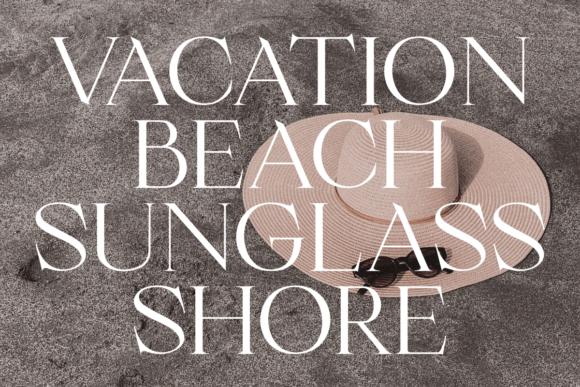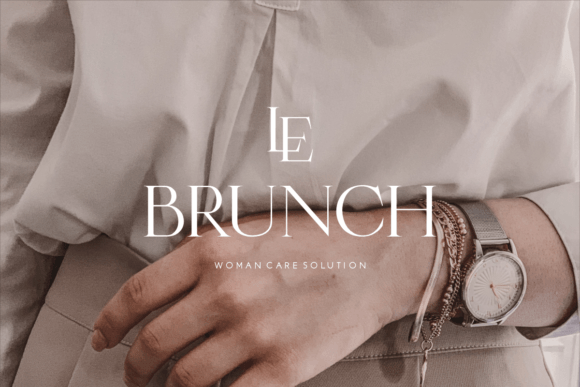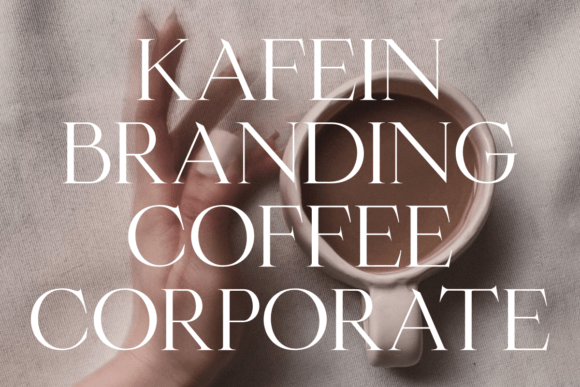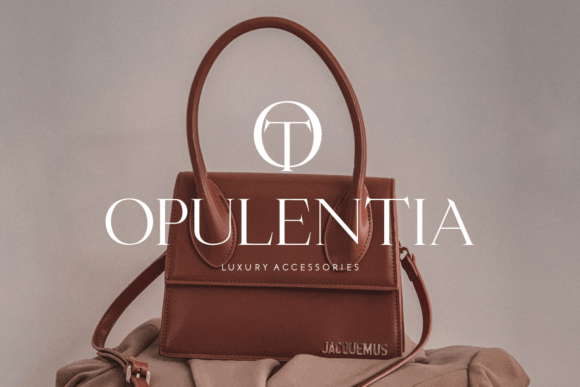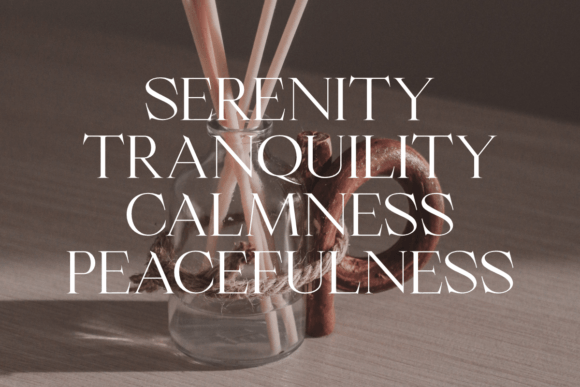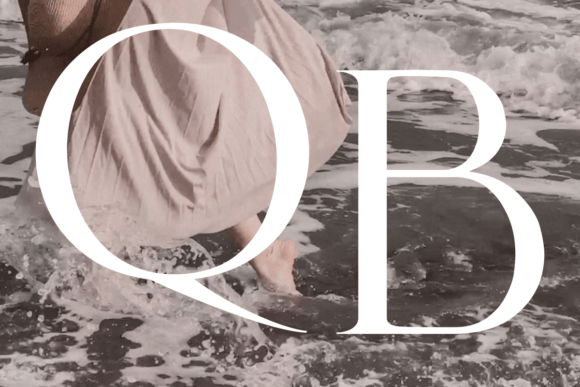
Introduction to Modist Font
Have you ever stared at a blank canvas, waiting for the perfect font to bring your creative project to life? The search for that elusive ‘wow factor’ can be daunting, especially when you’re working on a high-stakes design project. But what if I told you that there’s a font that could elevate your design to new heights, effortlessly combining classic elegance with a fresh modern touch?
Meet the Modist Font, a game-changing design resource that’s set to revolutionize the way you approach typography. With its smooth lines, balanced proportions, and high clarity, Modist is the perfect addition to any design project, whether you’re working on a logo, book layout, or marketing materials.
As a designer, you know the importance of using a high-quality font that can convey your message with precision and style. And that’s exactly what the Modist Font delivers – a sophisticated and professional look that’s sure to impress. Plus, with a transparent background and free download options, you can get creative without worrying about licensing fees.
Key Features of Modist Font
- High-quality design resource ideal for creative projects, offering a sophisticated and elegant look.
- Unique characteristics: a clean, modern design with subtle flair, making it perfect for branding, typography, and other creative projects.
Honest Review: Modist Font
I recently stumbled upon the Modist Font and I must say it’s a great addition to any designer’s toolkit. With its high quality and versatility, this font is perfect for a variety of creative projects.
- ✨ The font’s sleek and modern design makes it ideal for any contemporary project.
- ⚠️ The font may not be suitable for projects that require a more classic or traditional feel.
- ⚠️ Some users may find the font’s high quality to be too intense or overpowering.
Overall, I’m really impressed with the Modist Font. It’s a great resource for any designer looking to add a modern touch to their projects. While it may not be perfect for every project, it’s definitely a valuable addition to any design library.
Tips for Getting the Most Out of Modist Font
Use the Modist Font to create visually appealing headings and titles. Experiment with different font sizes and styles to achieve the desired effect. Additionally, take advantage of the transparent background to create unique overlays and designs.
The Modist Font is suitable for a wide range of creative projects, including brochures, flyers, and social media graphics. Its high-quality design and transparent background make it an ideal choice for designers looking to add a professional touch to their work.